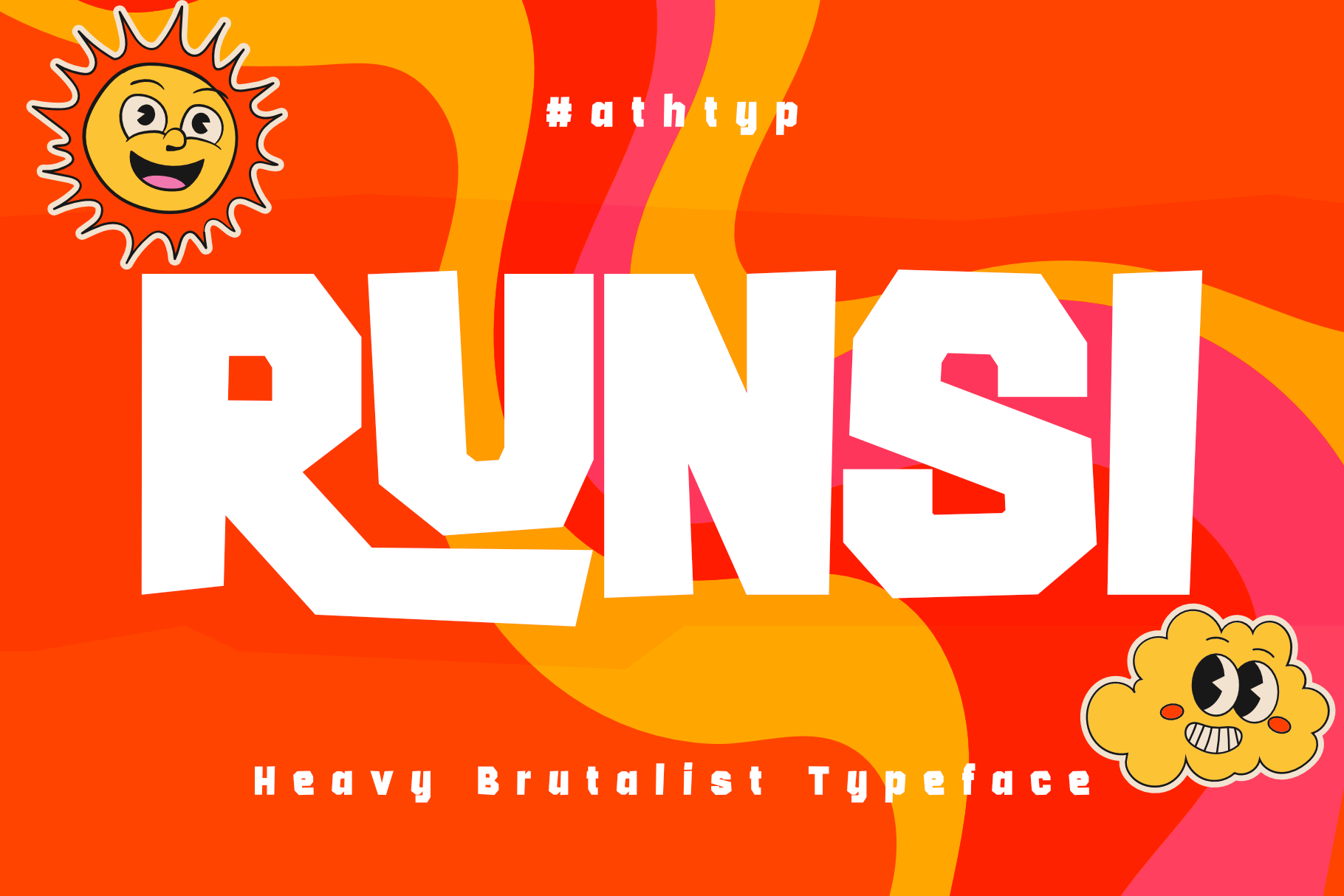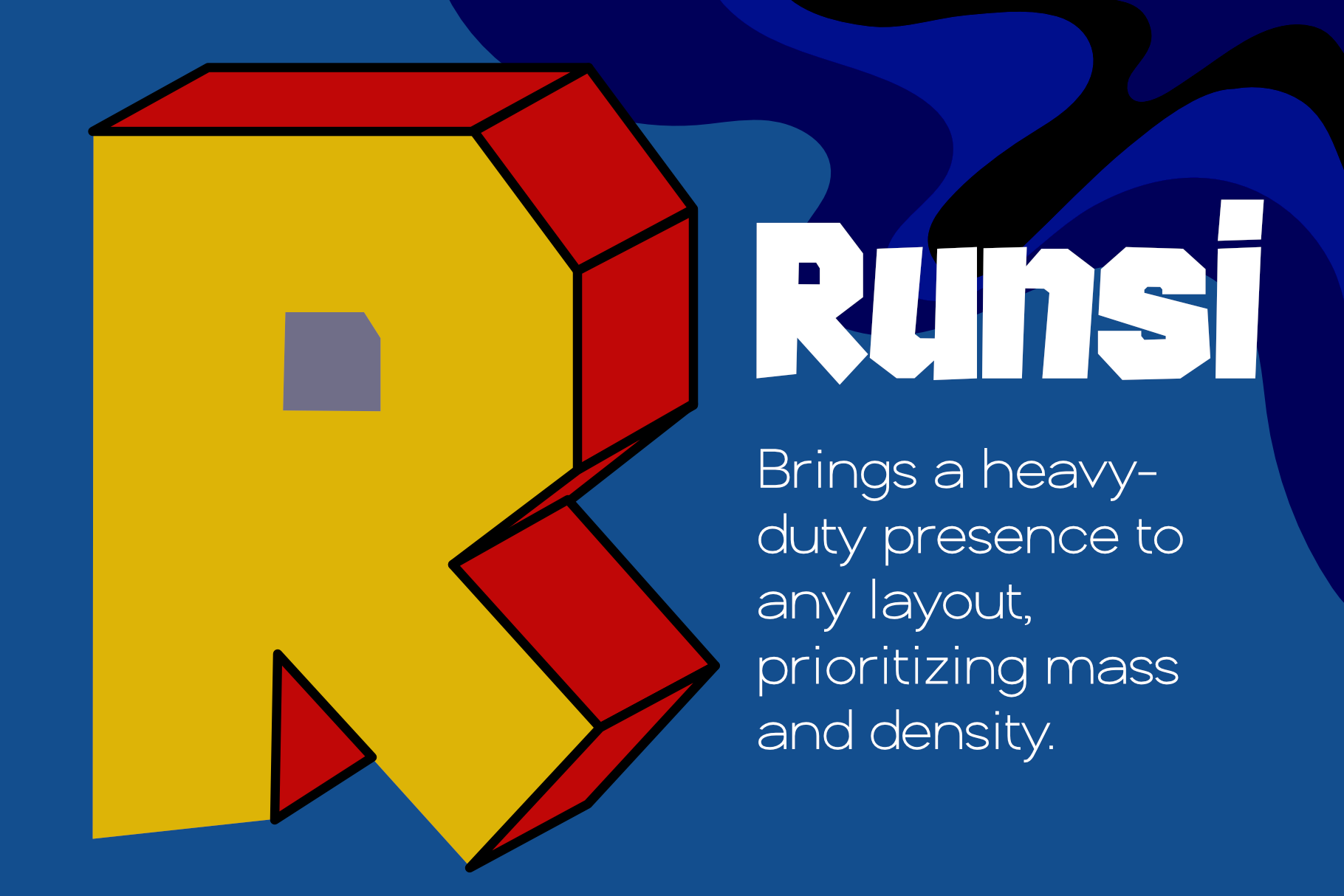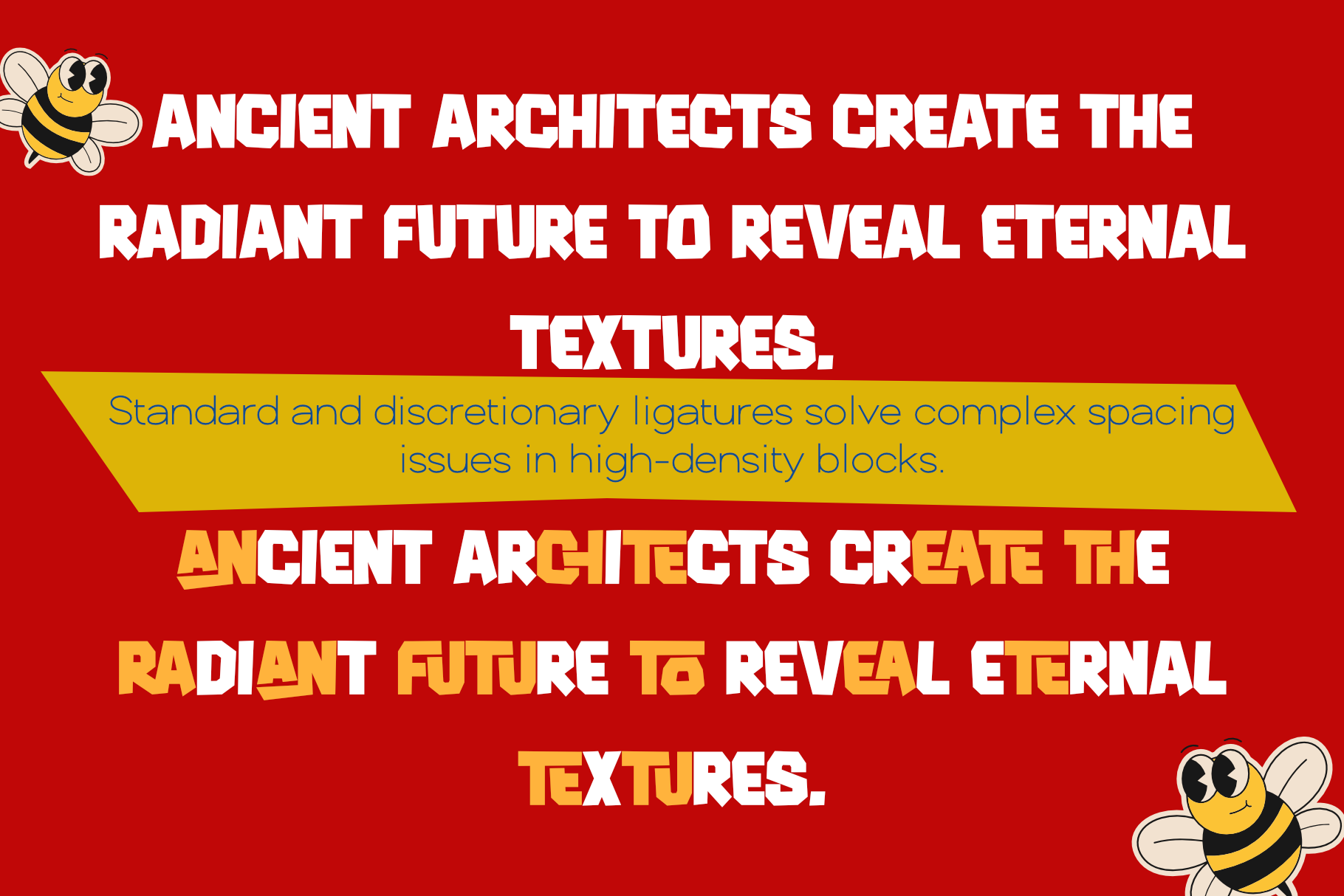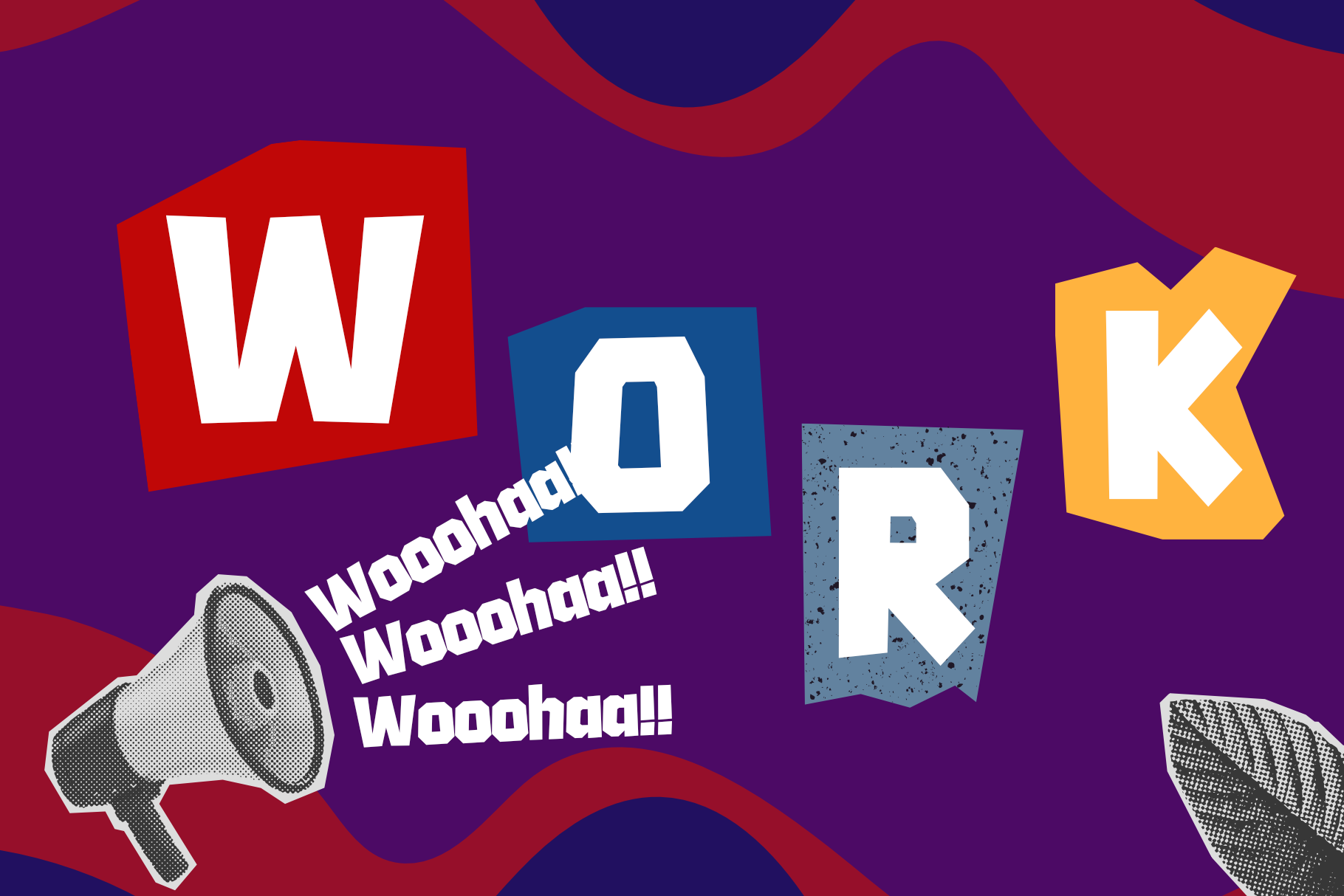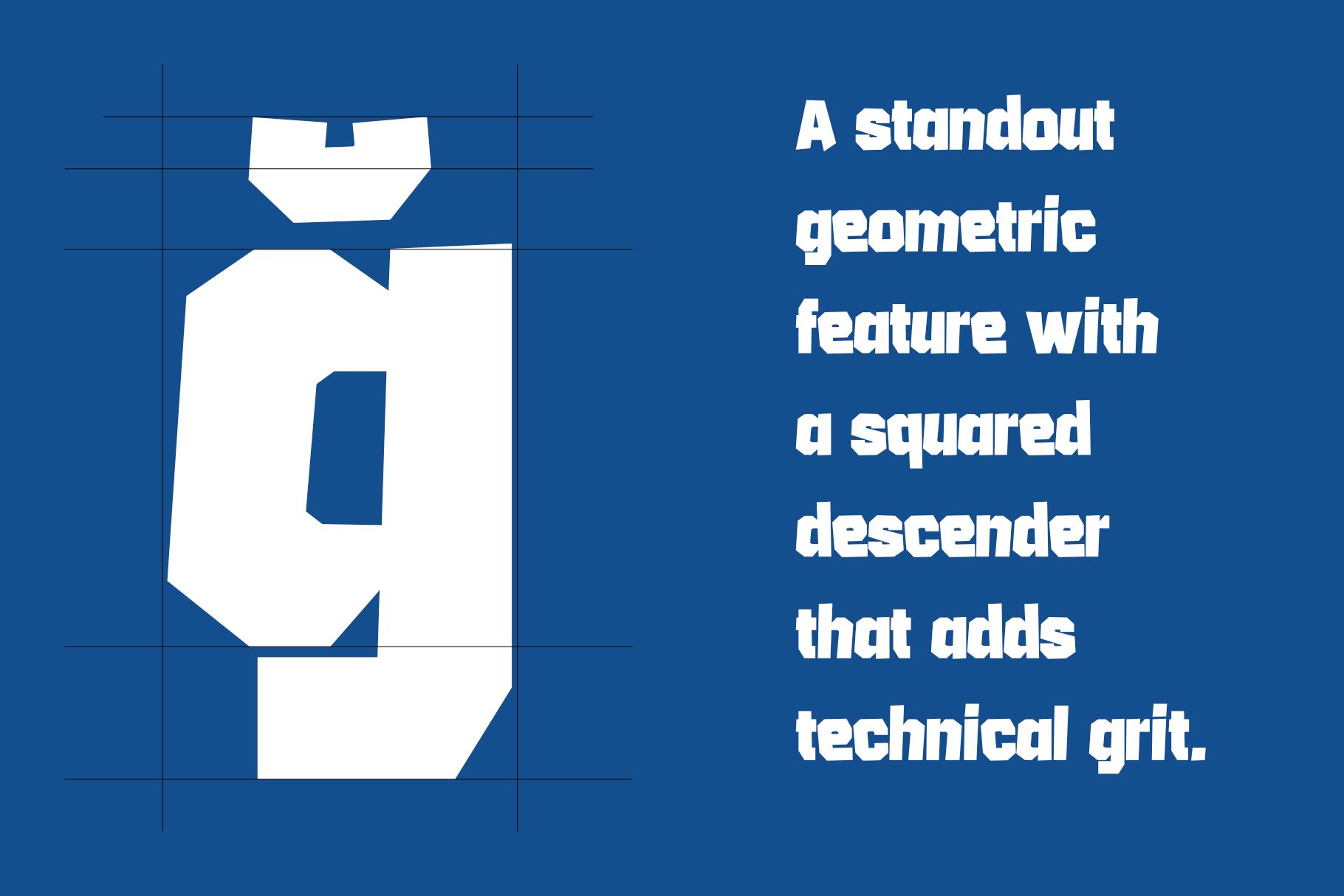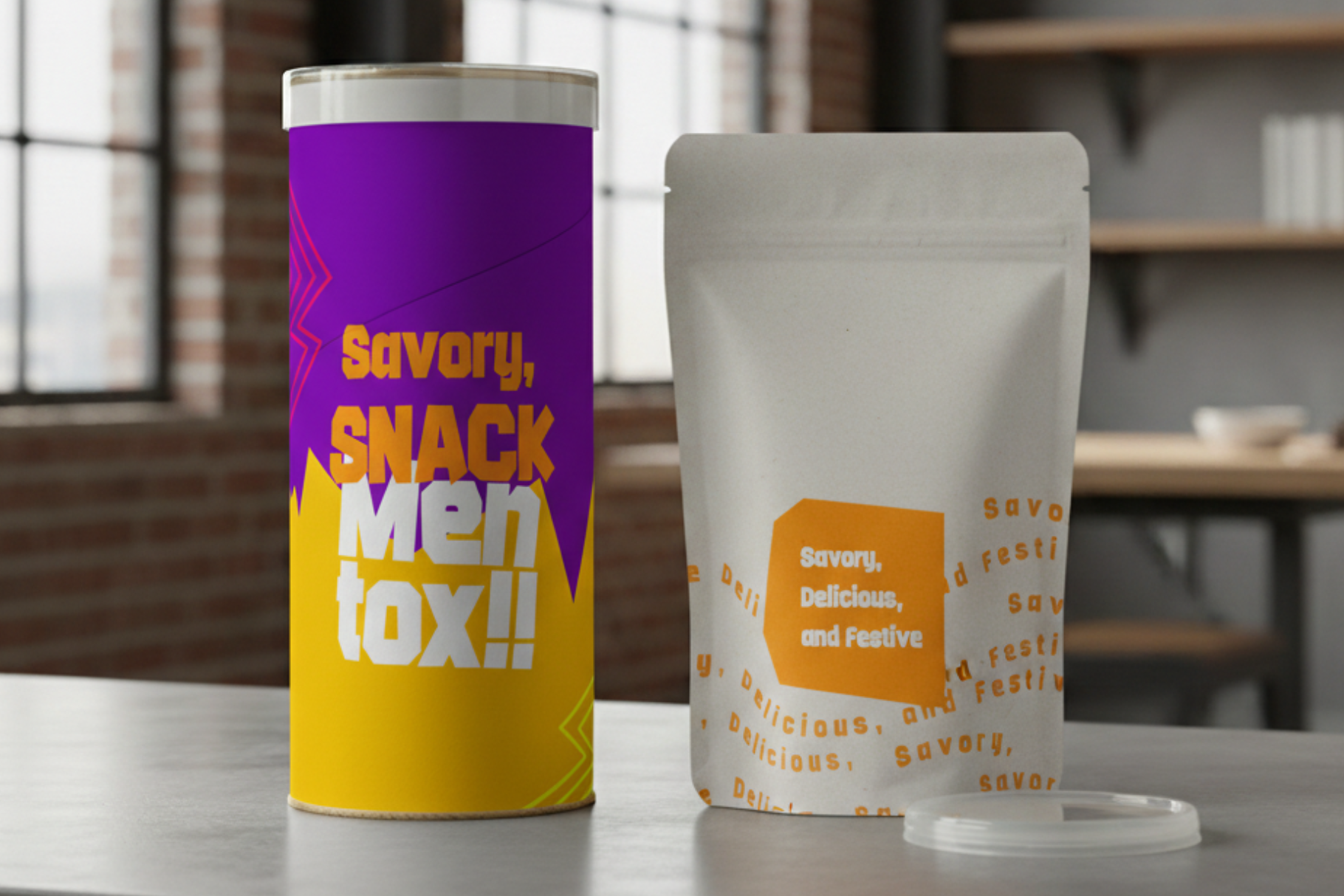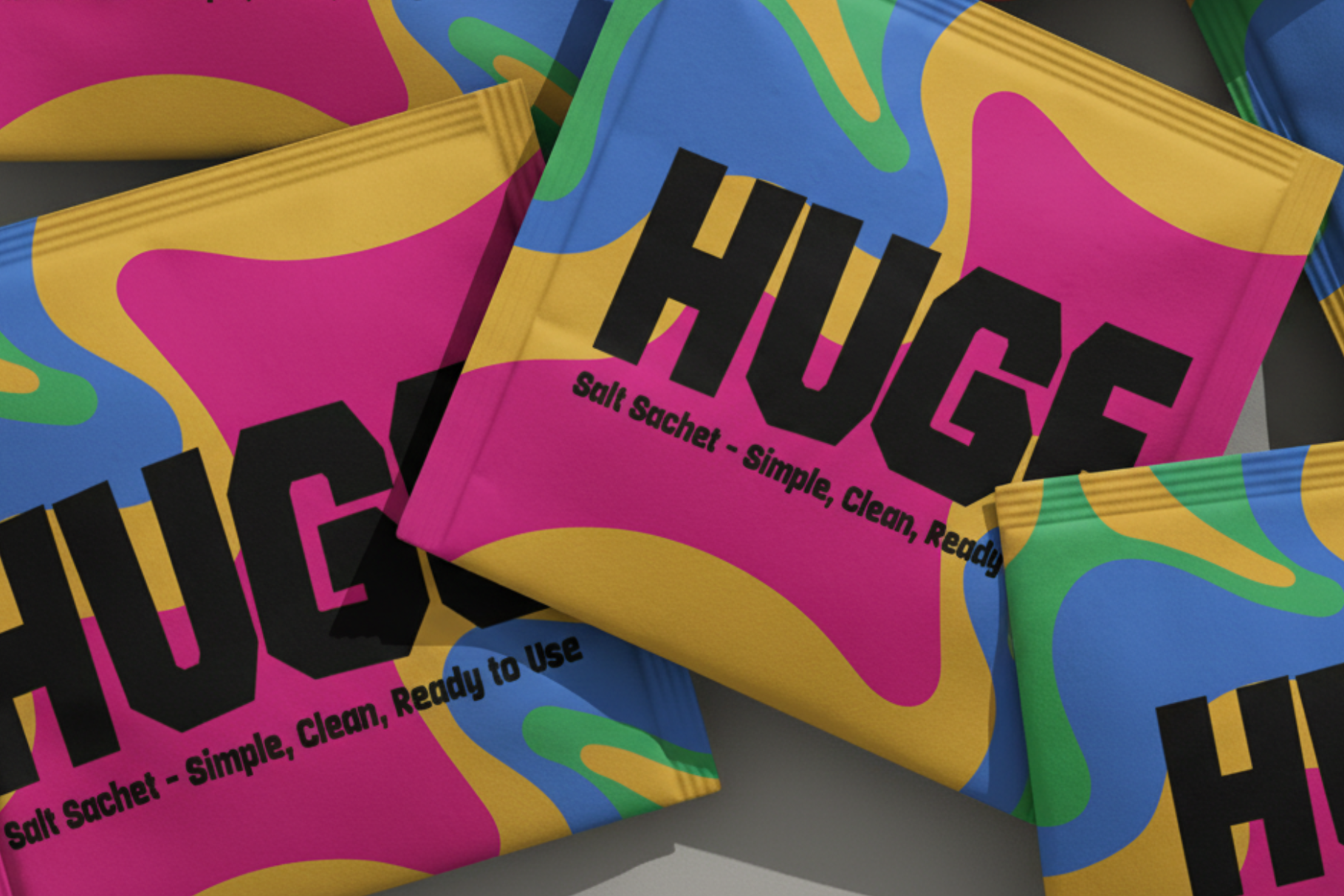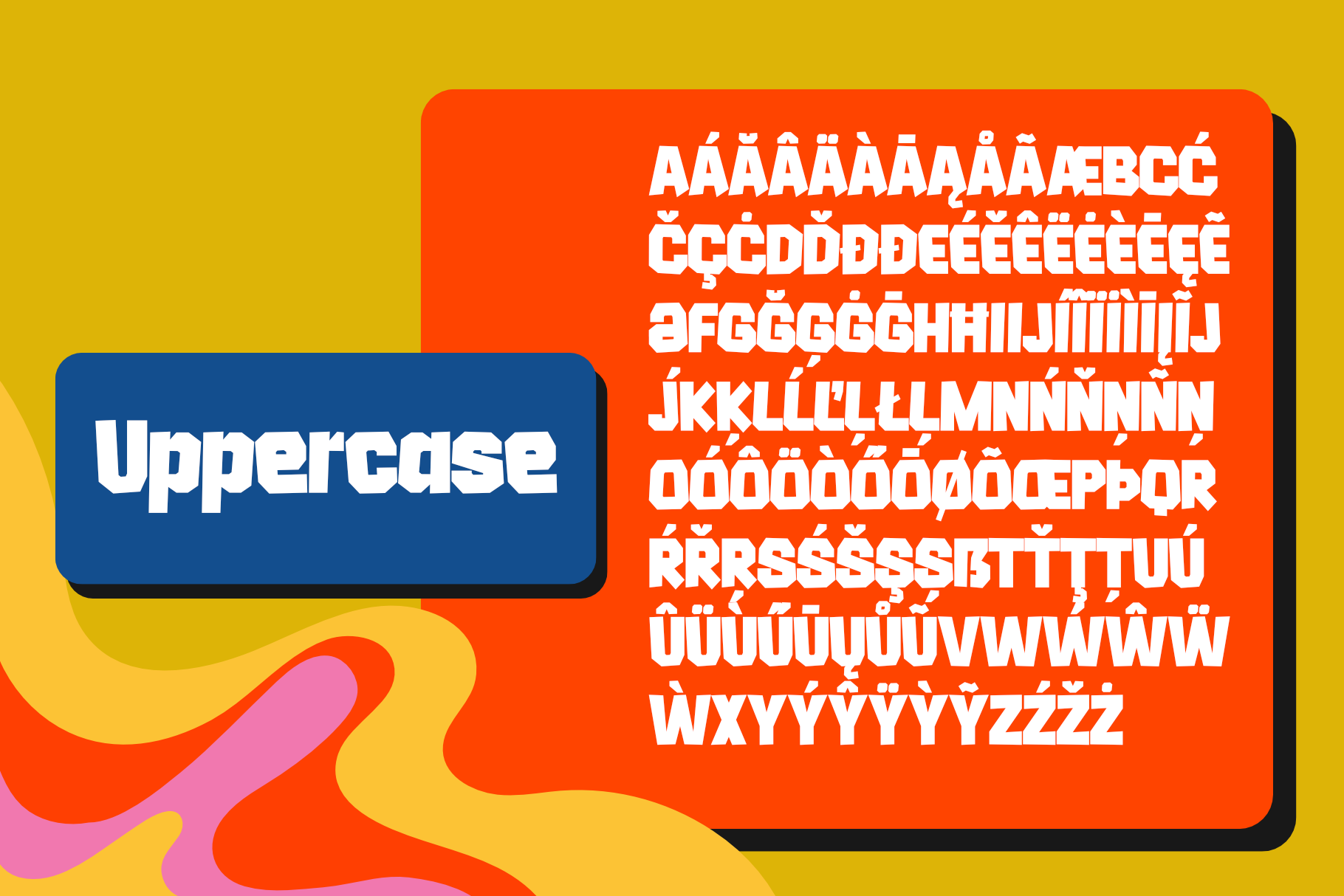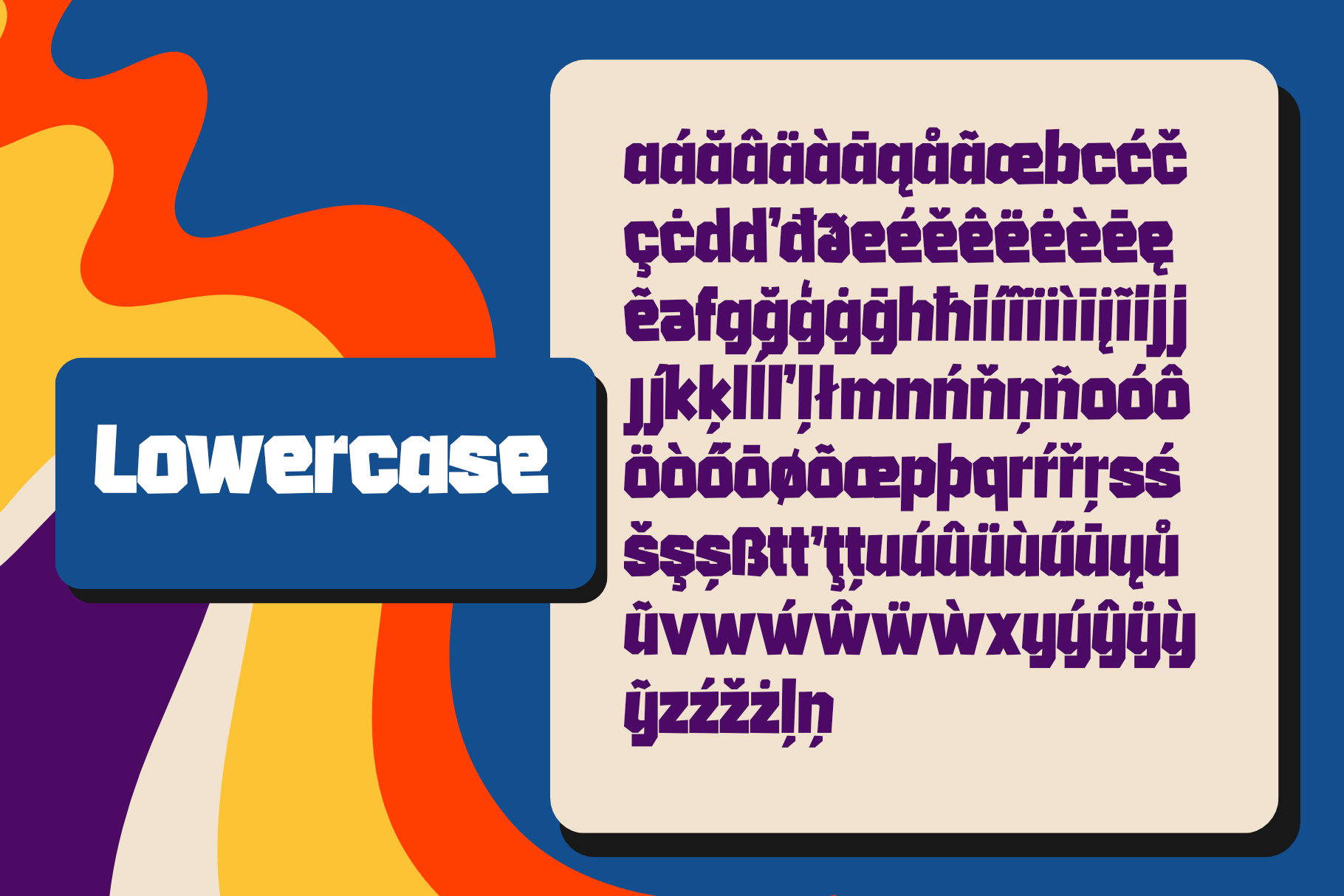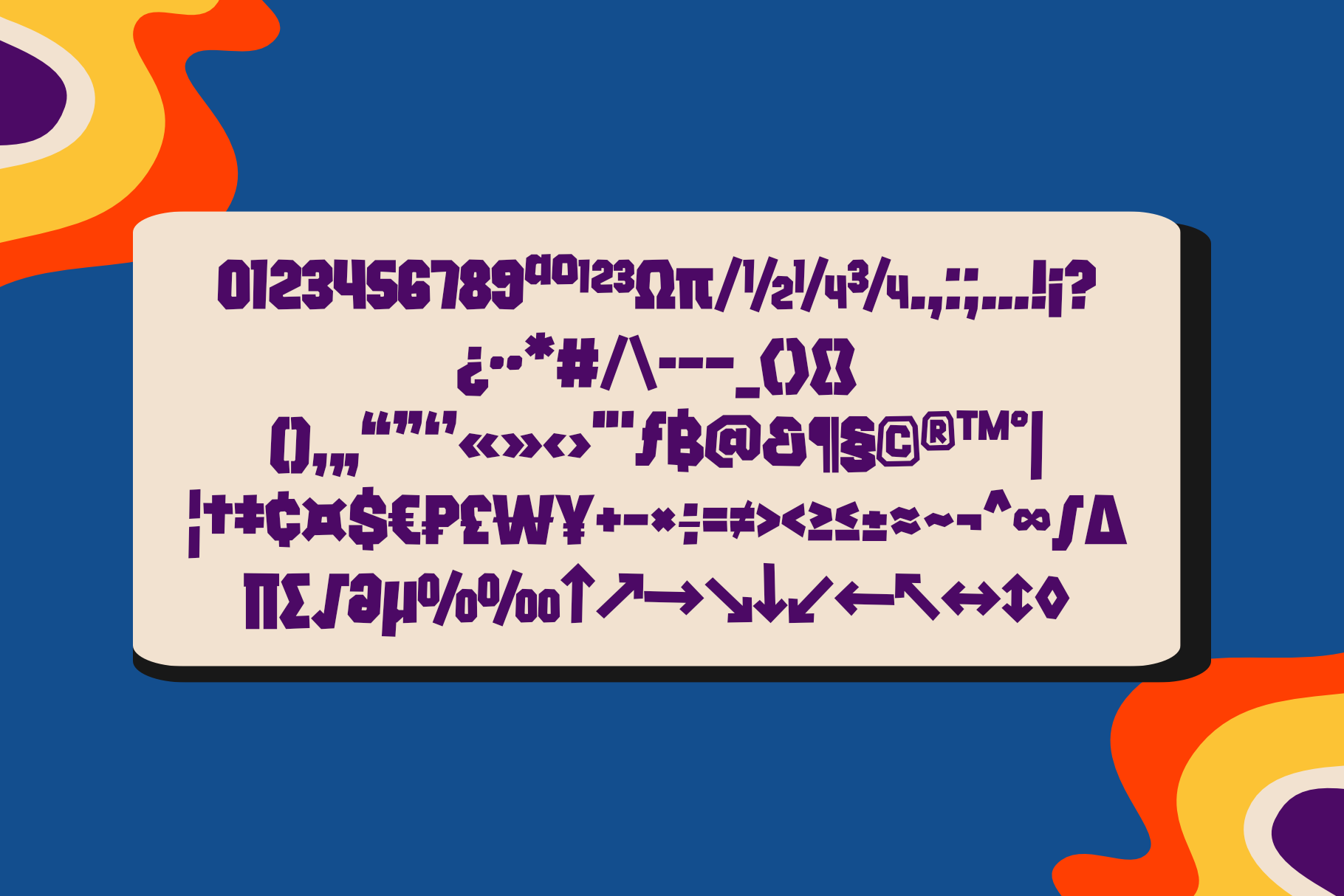
Runsi Heavy Brutalist Typeface
Runsi is a heavy-duty display typeface built for maximum optical density and raw visual power. With its blocky terminals and near-zero internal counters, it demands attention in poster layouts, streetwear apparel, and brutalist web headers. This isn’t just a font; it is a structural element designed to hold space with authority. The tight kerning pairs and extensive ligature set ensure that even at extreme weights, the textural rhythm remains consistent and aggressive. Perfect for designers looking to break away from clean minimalism into something more visceral and grounded.